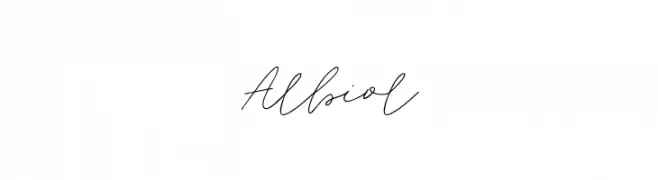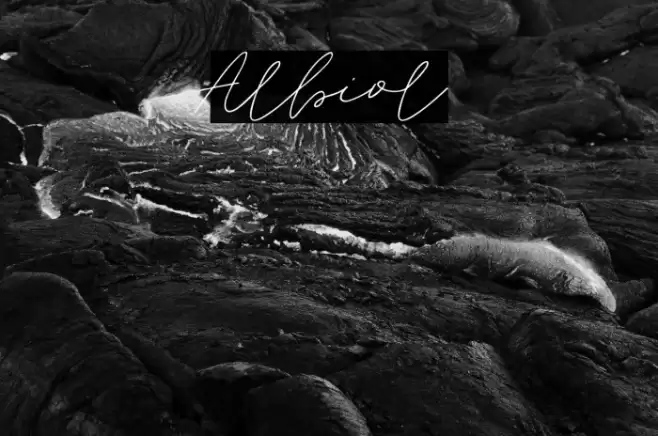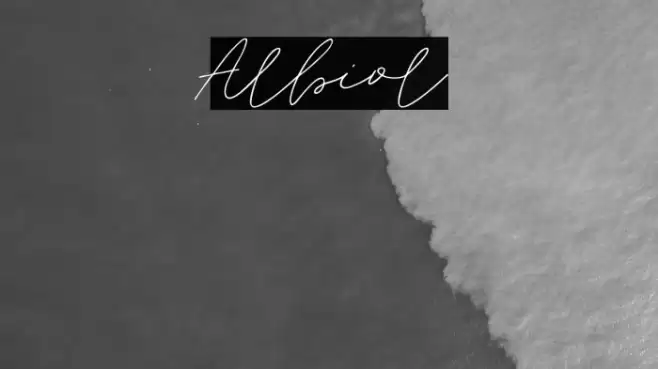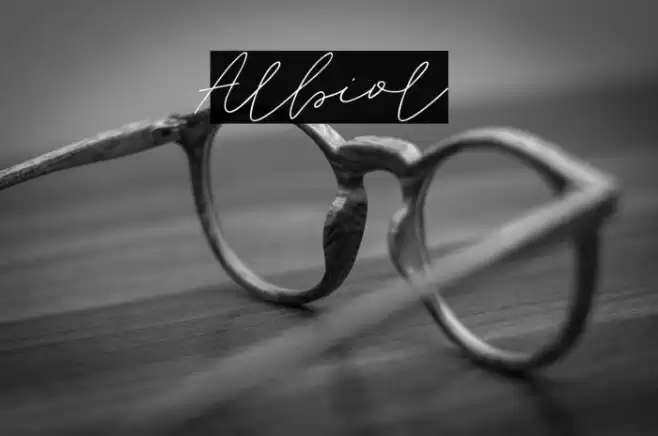
Albiol Font
Albiol Description
A cursive, handwritten style font with a delicate, flowing appearance, characterized by thin, elegant strokes and a slightly slanted orientation.
| Overall Style | Elegant, Casual, Personal |
| Use Case | Invitations, Personal branding, Logos, Greeting cards |